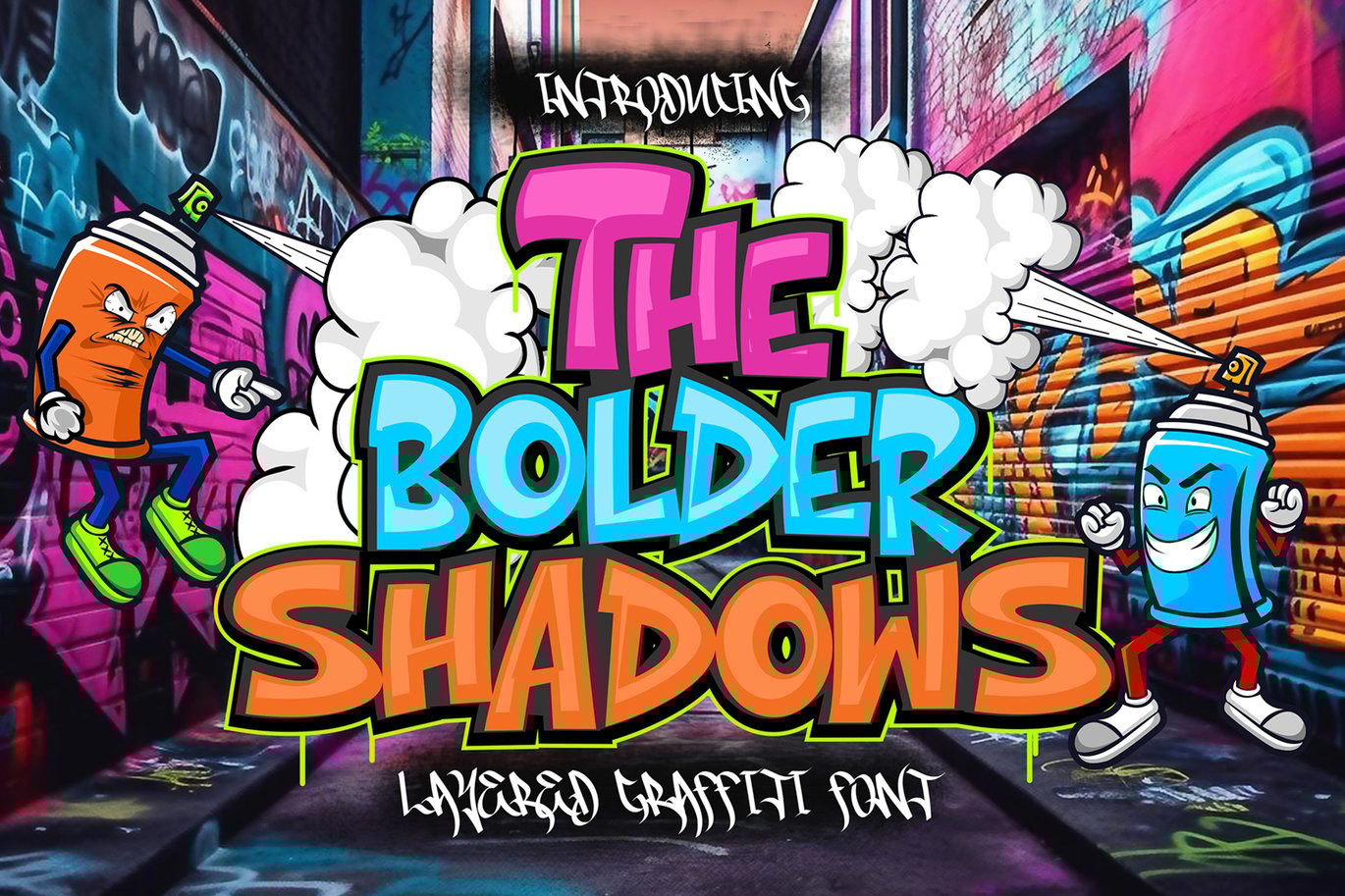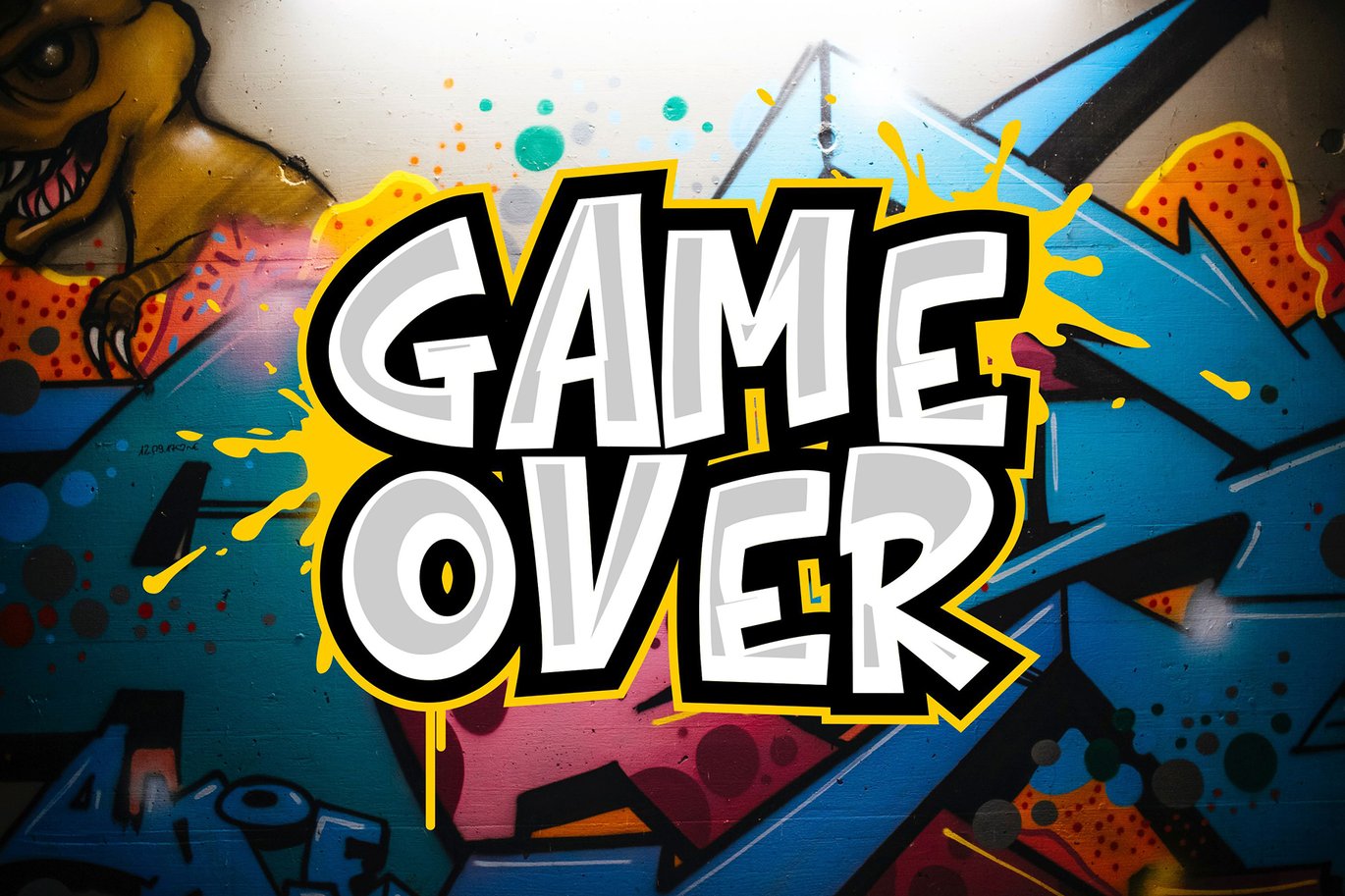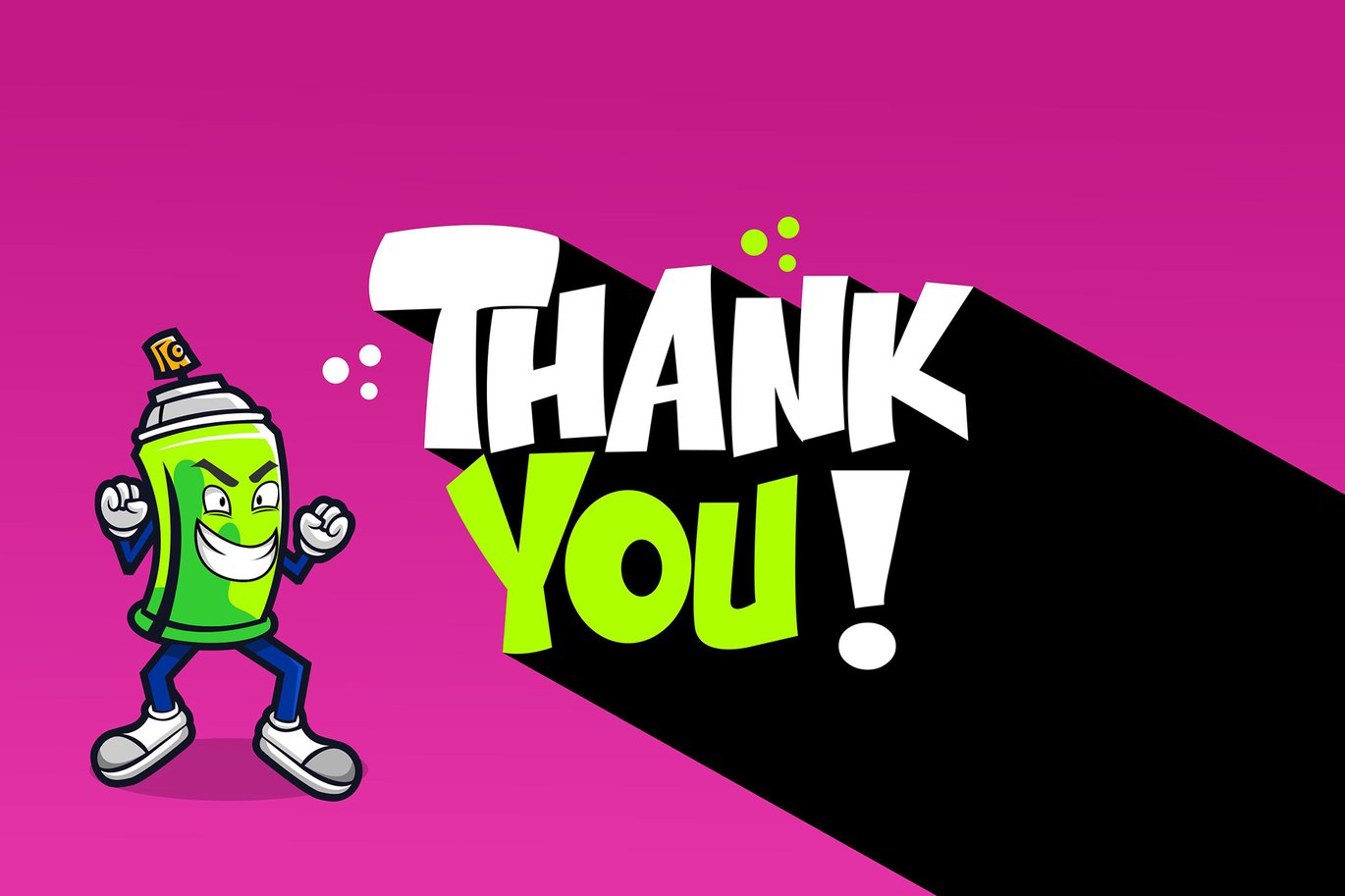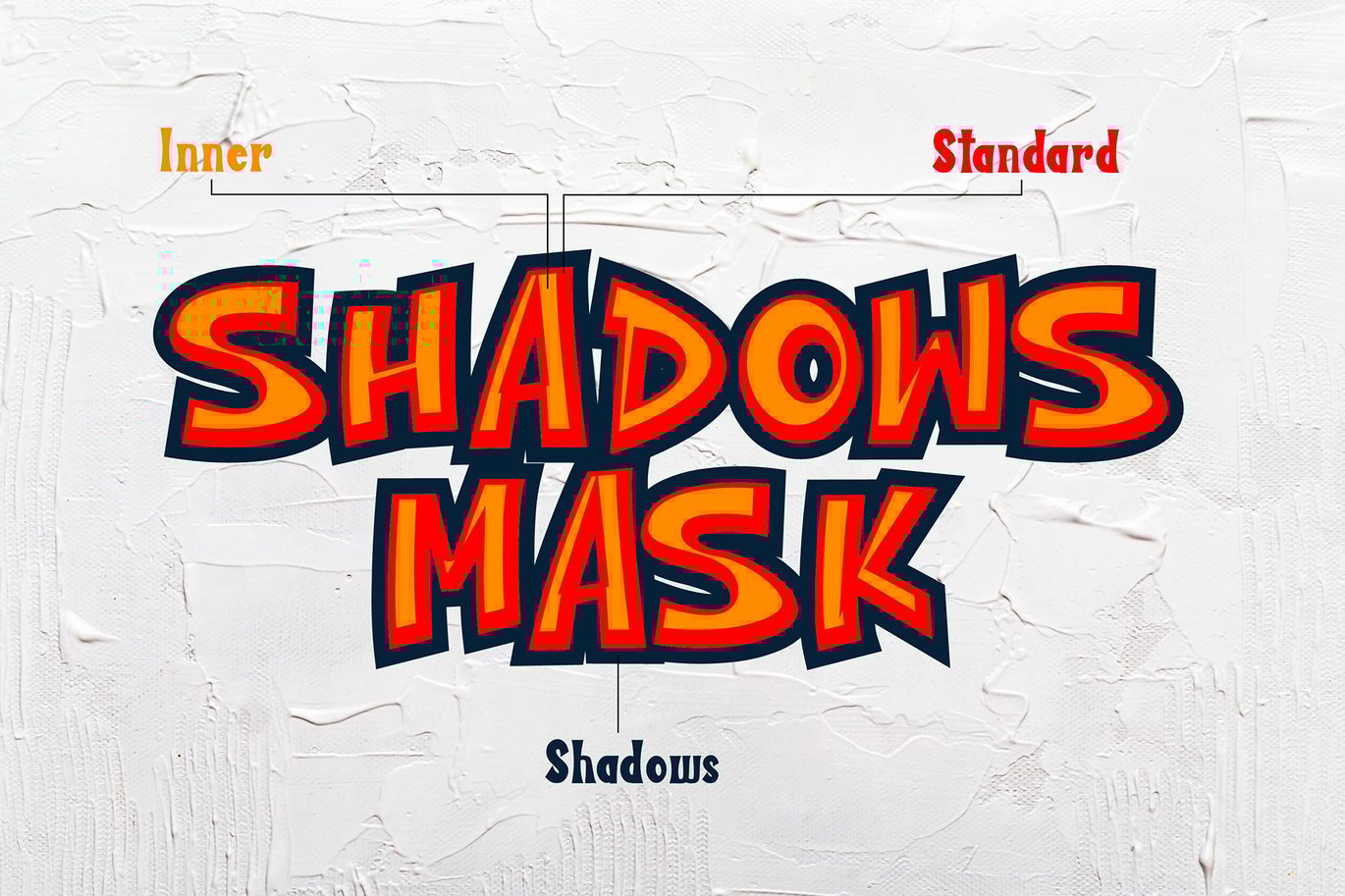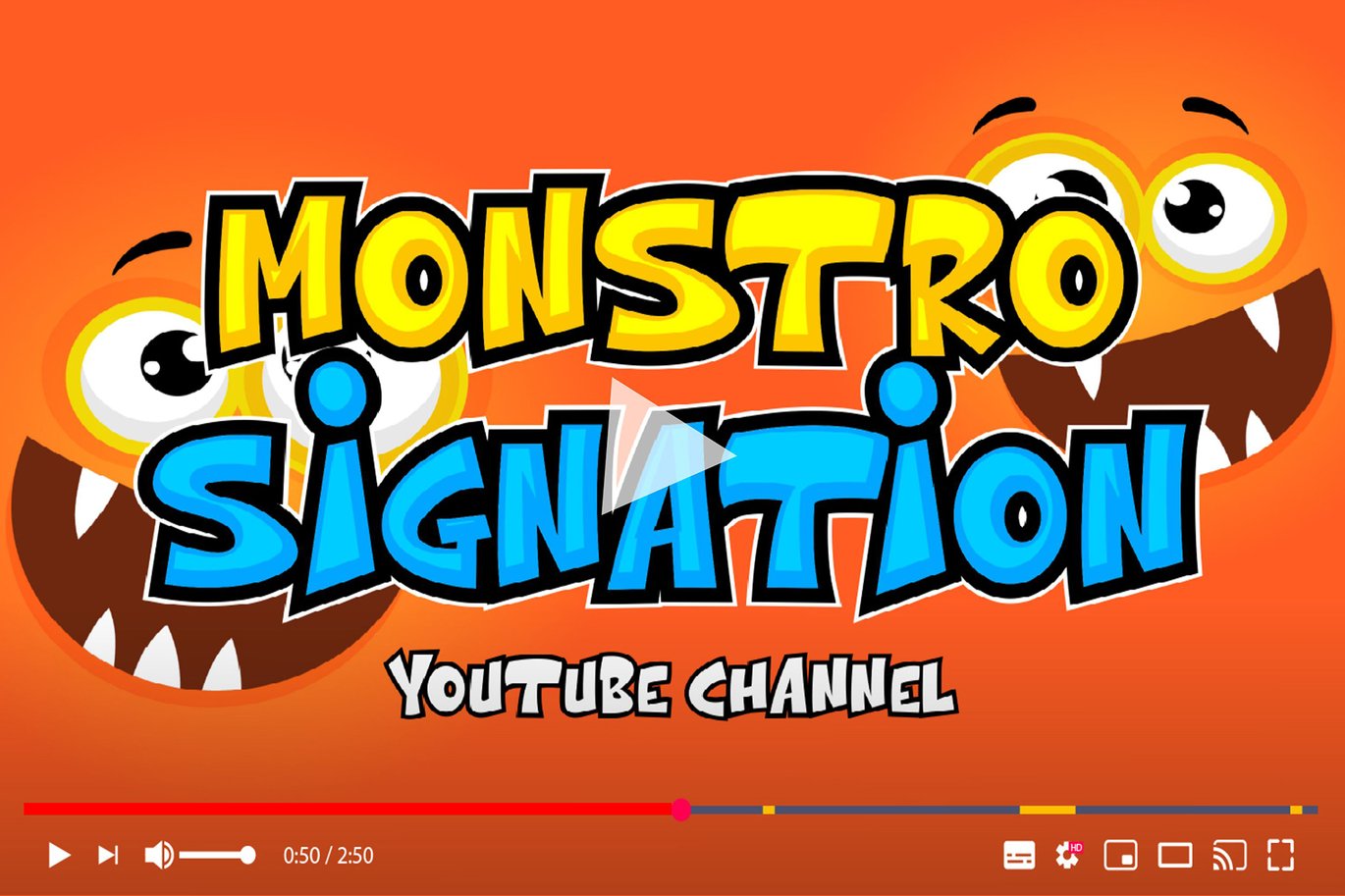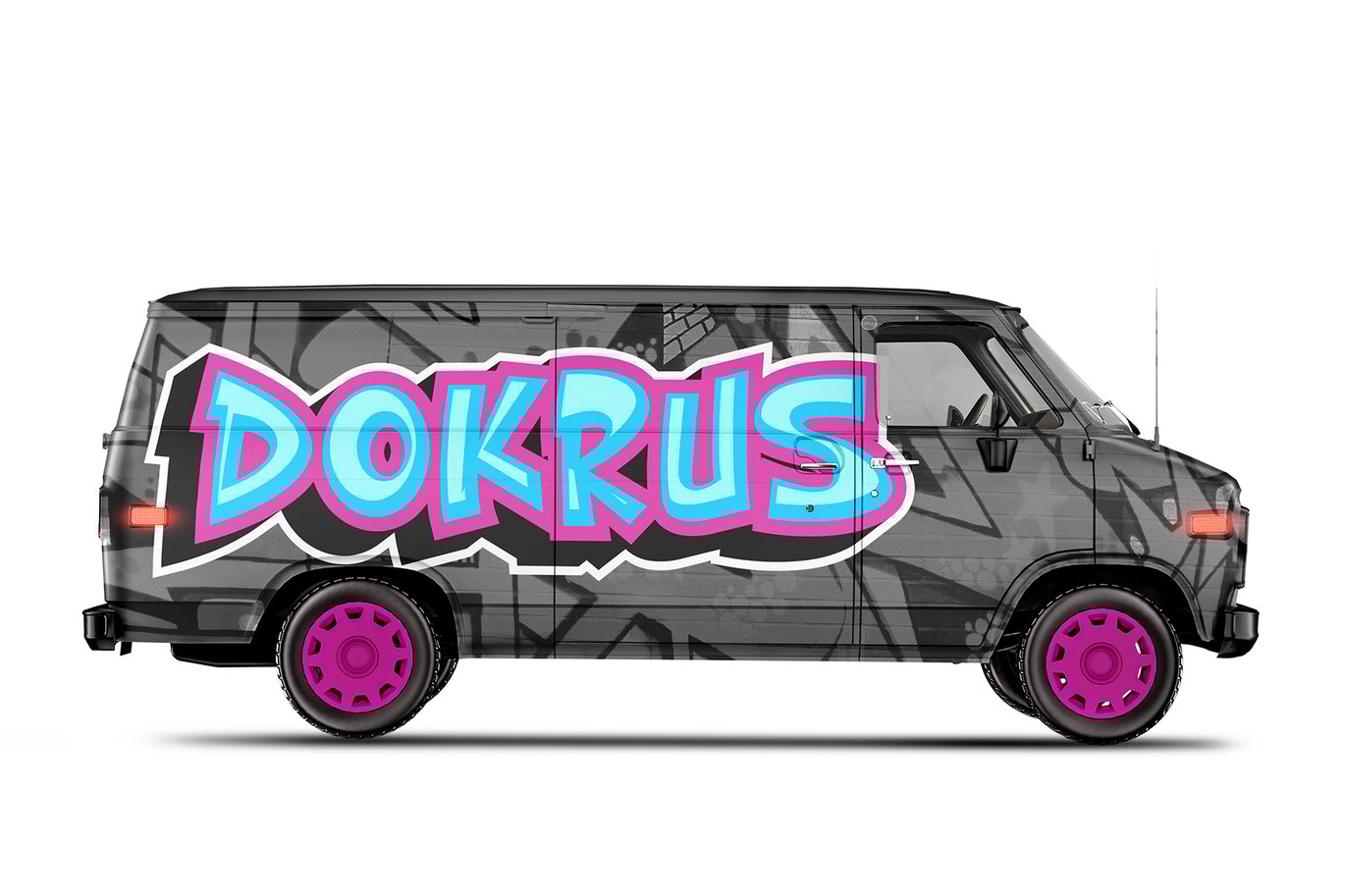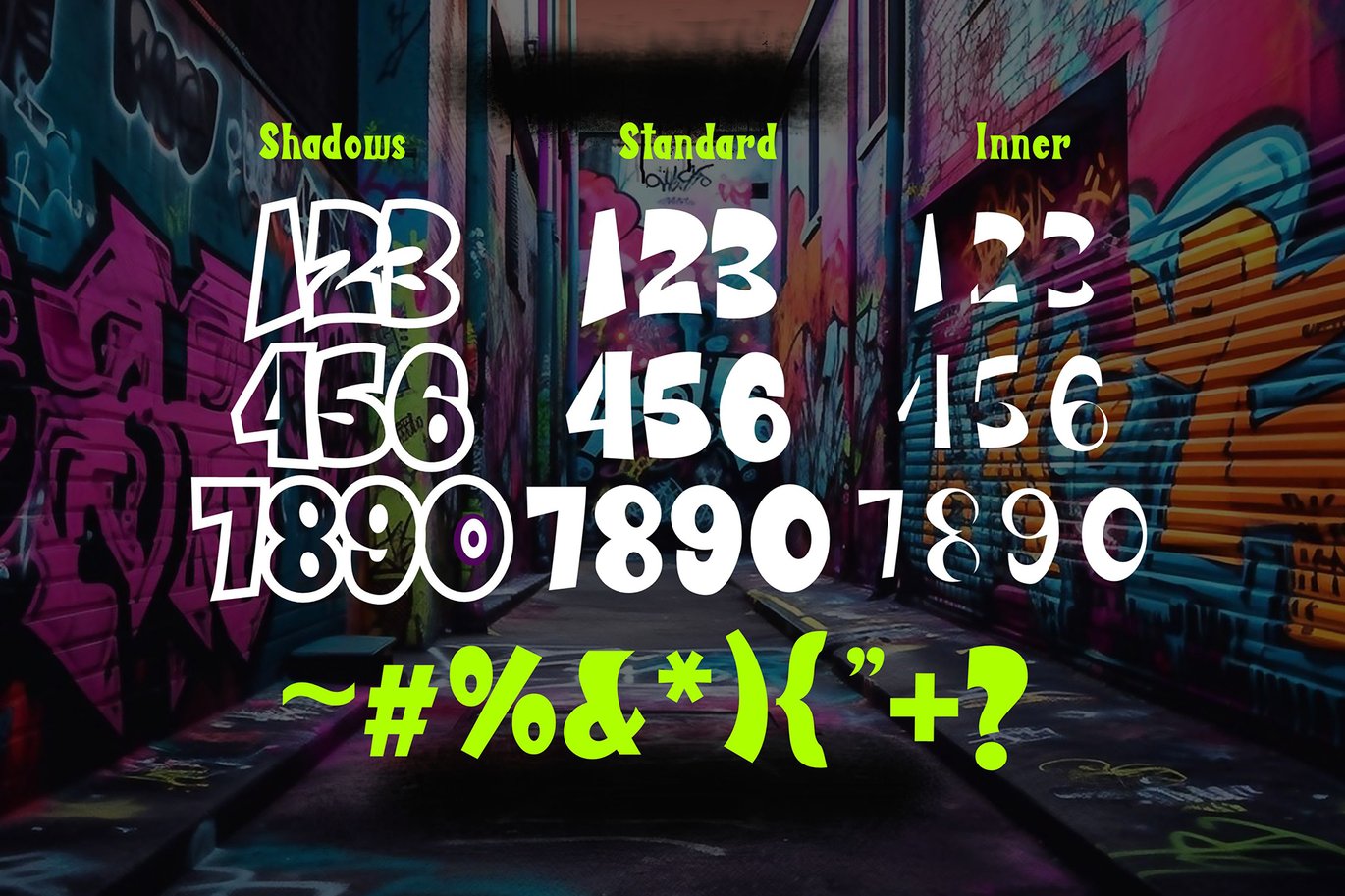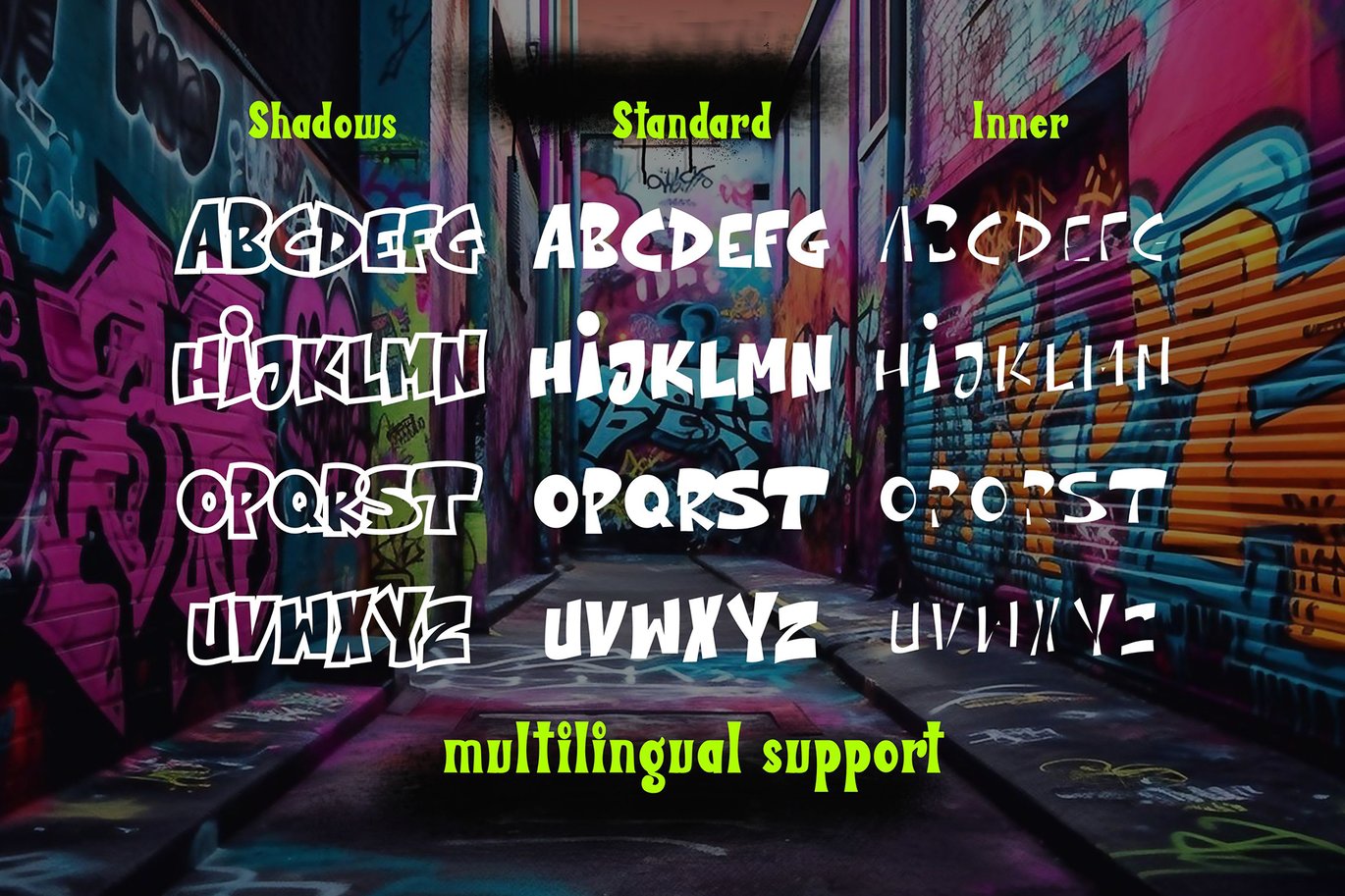
The Bolder Shadows – Layered Graffiti Font
The Bolder Shadow is an edgy and dynamic layered graffiti font that adds a bold statement to any design. With its rugged strokes and urban-inspired style, this font captures the raw energy and rebellious spirit of street art. Each layer brings depth and dimension, allowing you to create eye-catching designs that command attention. From posters to album covers, The Bolder Shadow injects an urban vibe and an unmistakable attitude, making your message stand out in a striking and unforgettable way.
- Number and Punctuation
- Layered
- Versatile for branding, headline, or printing product